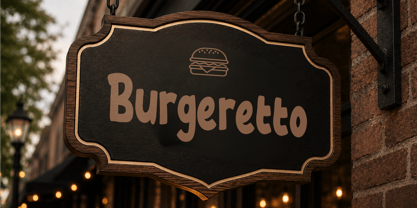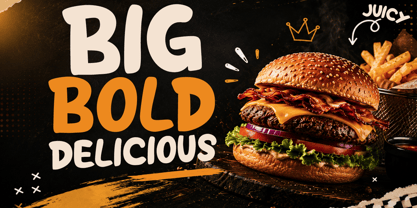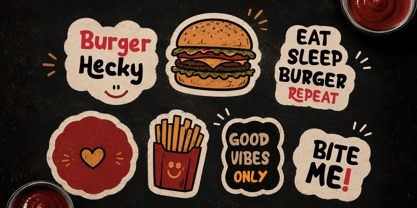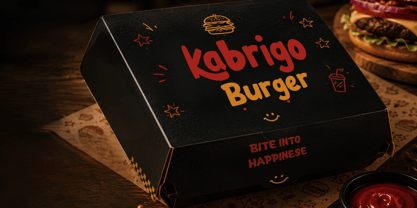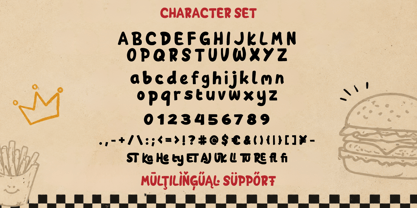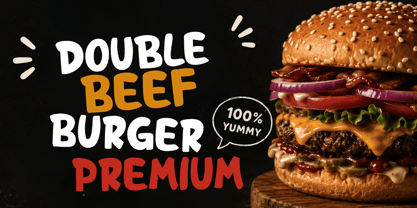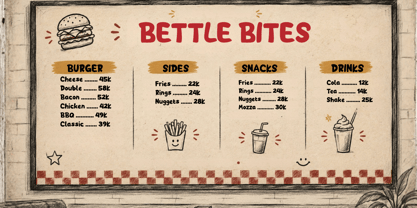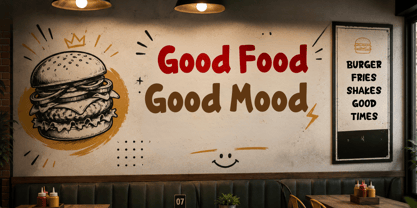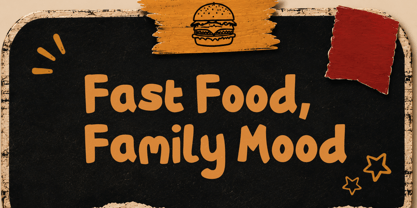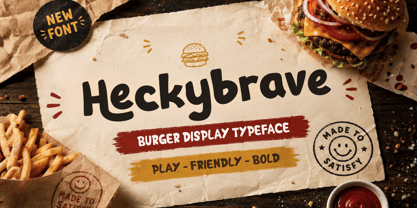
Heckybrave
The Heckybrave Font Family was designed by Lita Faolina and published by Product Type. Heckybrave contains 1 styles. More about this family
Heckybrave is a bold and playful burger display font crafted to bring energy, flavor, and personality into every design. Featuring chunky letterforms with a handcrafted feel, this typeface delivers a fun and appetizing look that's perfect for modern food branding, fast-food promotions, and eye-catching marketing materials.
Designed for burger restaurants, food trucks, cafés, takeaway packaging, restaurant menus, product labels, social media content, posters, logos, and promotional campaigns, Heckybrave creates strong visual impact while remaining highly readable. Its cheerful style makes every headline stand out and gives your brand a memorable identity.
Whether you're building a burger brand, launching a street food business, designing snack packaging, creating restaurant advertisements, or producing modern culinary merchandise, Heckybrave adds a deliciously bold character that attracts customers and strengthens your visual branding.
- Multilingual Support: Fully supports 85+ languages, including: